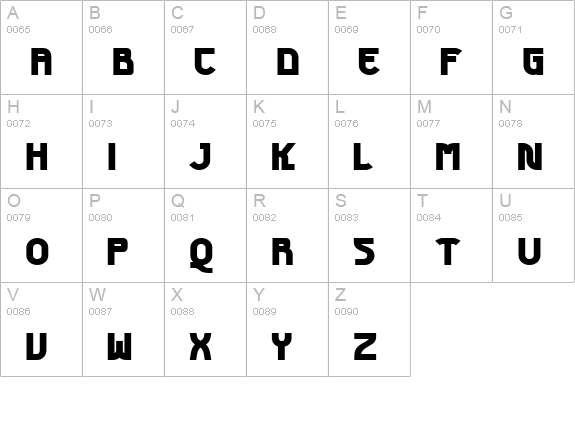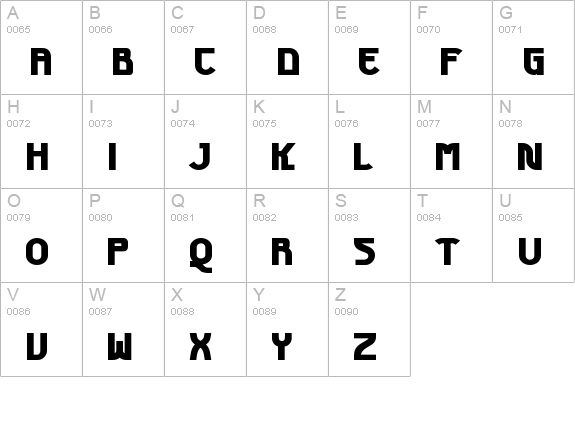
Futurex Phat font is a bold and eye-catching typeface designed for making a strong visual statement. Its thick and rounded letterforms exude confidence and modernity, making it an ideal choice for headlines, posters, and branding projects that demand attention. The generous spacing and clean lines of this font ensure readability even at larger sizes. What's even better is that Futurex Phat font is available for free download at FontsMarket.com. This means you can easily access and use this striking typeface in your designs without any cost. Whether you're a designer looking to add a punch to your creations or a business owner wanting to make a bold impression, Futurex Phat font is a versatile and impactful choice that won't break the bank. Download it today and let your creativity shine with this dynamic and engaging font.